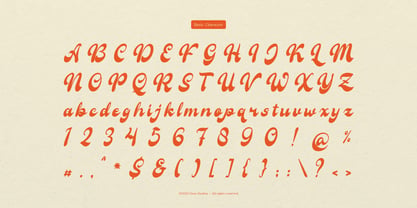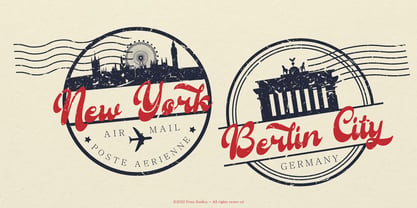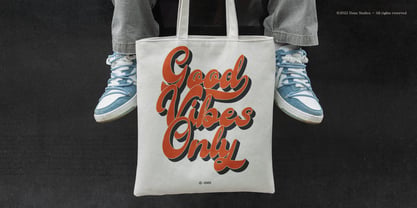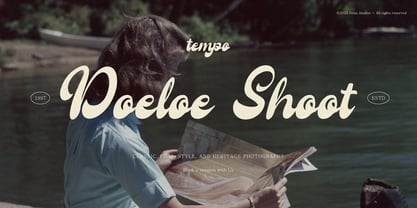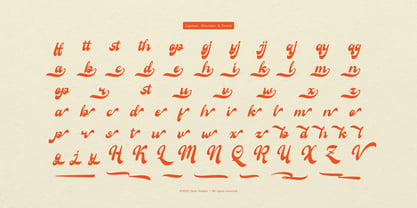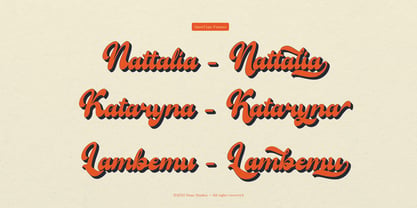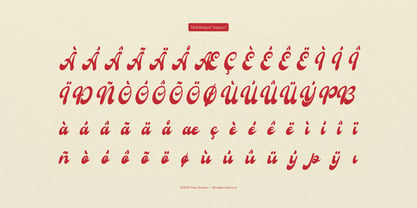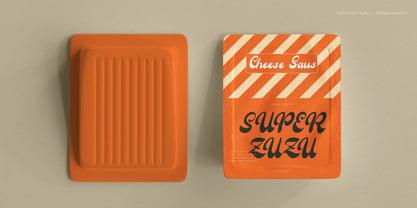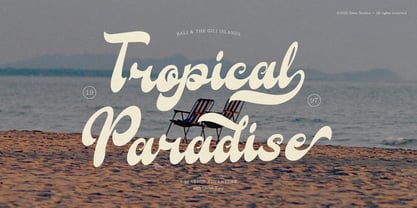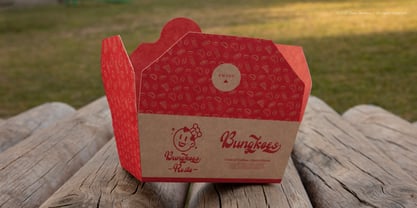
Qinlath
von Denustudio
Die Schriftfamilie Qinlath wurde von Dede Nugraha entworfen und von Denustudio veröffentlicht. Qinlath enthält 2 Stile und Familienpaketoptionen. Mehr über diese Familie
Galaxy Aura | Cyber Condensed Font, from Denustudios, suitable for any projects such as: logos, branding projects, homeware designs, product packaging, mugs, quotes, posters, shopping bags, t-shirts, book covers, name card, invitation cards, greeting cards, label, photography, watermark, special events, and all your other lovely projects that need Cyber Condensed Font a taste.
• Regular and Italic
• Standard glyphs
• Alternate and Ligature
• Fonts include multilingual support
Designer: Dede Nugraha
Foundry: Denustudio